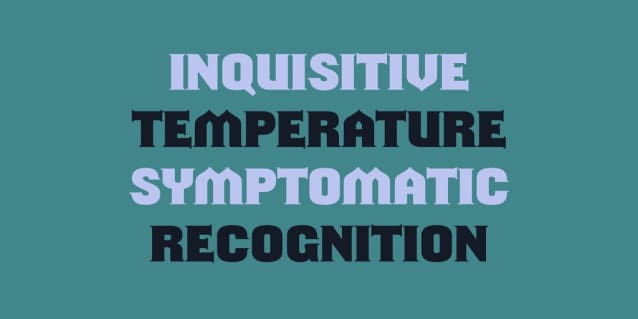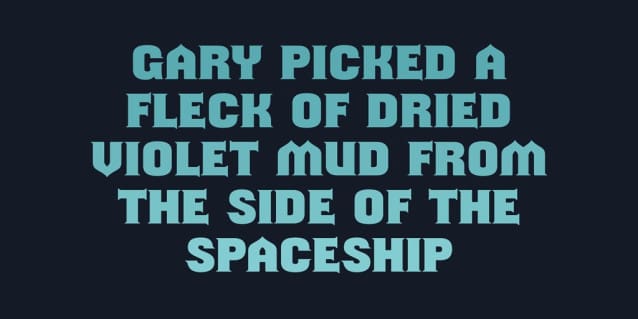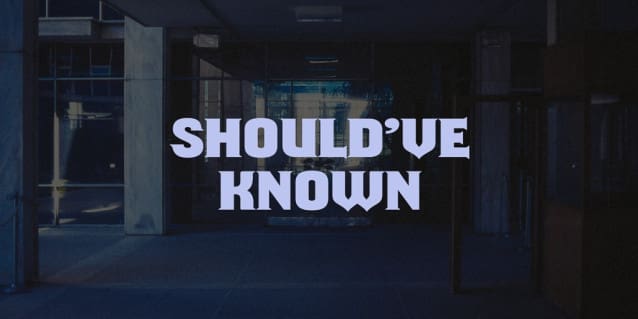
Should’ve Known Font
Should’ve Known Font, a typeface that will transport your text into a world of enigmatic allure and stylistic distinction. Heralded as a horse-opera headline honker, this font is an unmistakable work of art. Its unconventional letterforms will capture the imagination of your audience and take them on a journey through an alternate universe of typographic expression.
With Should’ve Known, your words will transcend the mundane and venture into uncharted territory. Each character is carefully crafted to embody a unique identity, brimming with character and flair. The letterforms possess a distinct energy, one that is both playful and refined. This juxtaposition of styles adds a layer of complexity to your messaging, sparking curiosity and interest in your readers.
Like a seasoned cowboy traversing the wild west, Should’ve Known commands attention with its bold strokes and intricate detailing. Its unconventional design is a breath of fresh air in the world of typography, offering a creative twist to traditional typefaces. Each letter is an exploration in form, capturing the essence of a world where artistic expression reigns supreme.
Incorporating Should’ve Known into your designs is a choice to stand out, to create an impression that will leave a lasting impact on your audience. This typeface is not for the faint of heart; it demands attention and will be remembered long after the message has been received. So take a chance, and give your text the distinction it deserves with Should’ve Known—the typeface from an alternate universe.